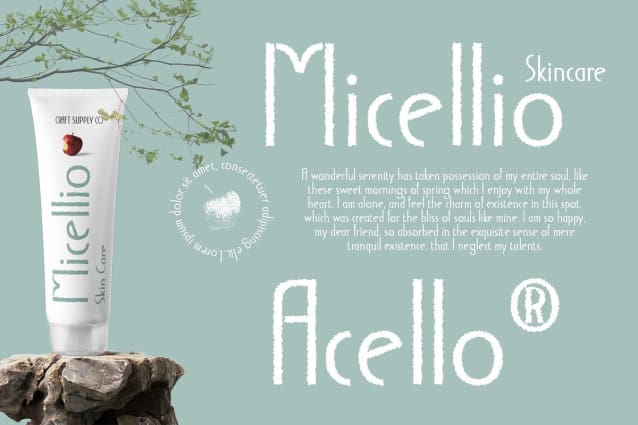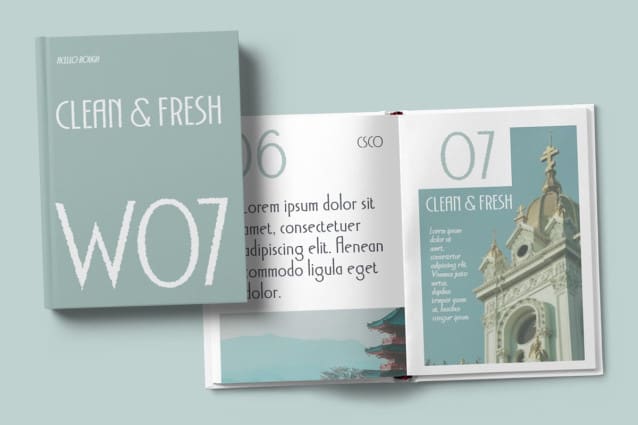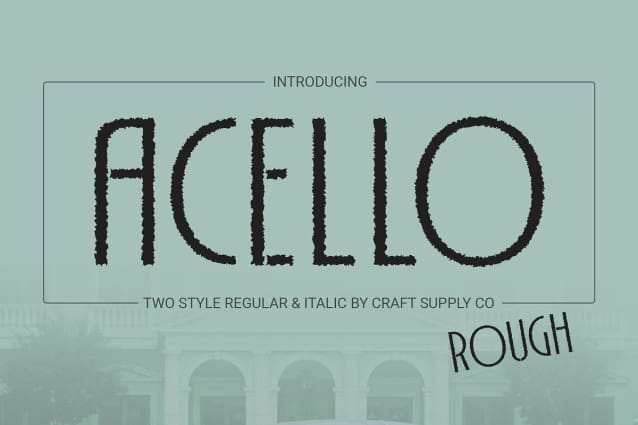
Acello Rough Font
Acello Rough Font : Elevating Display Typography. Towering Sans Serif Design Acello Rough features a tall and orderly sans serif structure, commanding attention with its striking verticality. Its clean lines and consistent height offer a sense of stability and modernity.
Rugged Charm with Rough Effects Infused with rough effects, This font exudes a rugged charm that adds character to any display project. The rough texture imbues the font with a sense of authenticity and uniqueness.
Tailored for Display Needs Designed specifically for display purposes, This font excels in grabbing the viewer’s attention. Whether used in headlines, banners, or posters, its bold presence and rough texture make it stand out effortlessly.
Versatile Application Despite its rugged appearance, This font is surprisingly versatile in application. From branding to editorial design, its tall sans serif form and rough effects bring a dynamic edge to various design projects.
Bold and Authentic This font emerges as a bold and authentic choice for display typography. With its tall sans serif design and rugged rough effects, it offers a unique blend of modernity and raw charm, making it an ideal option for captivating display designs.